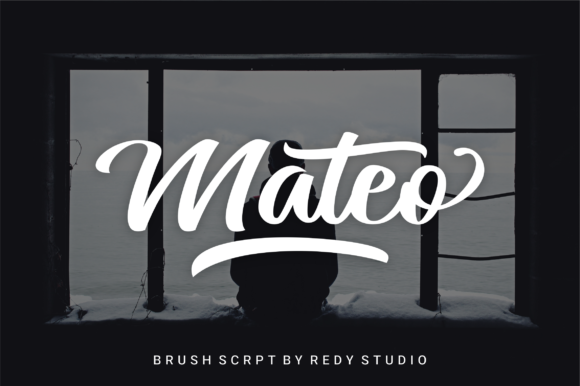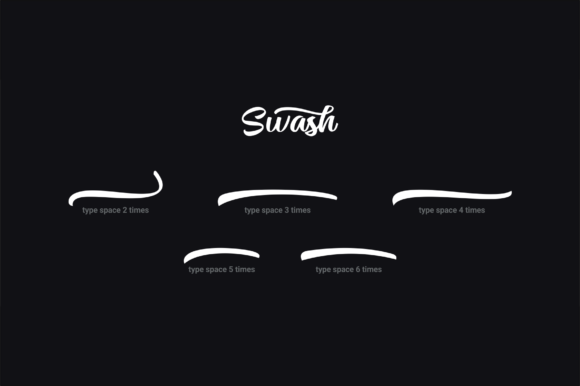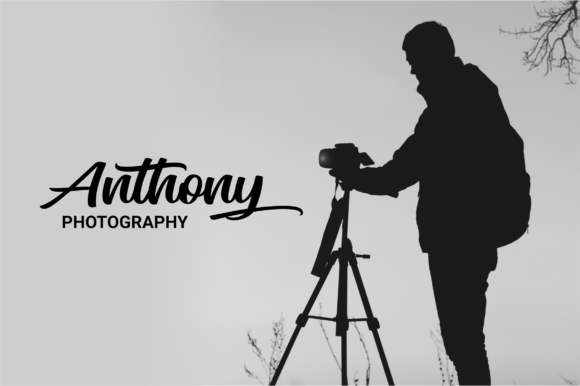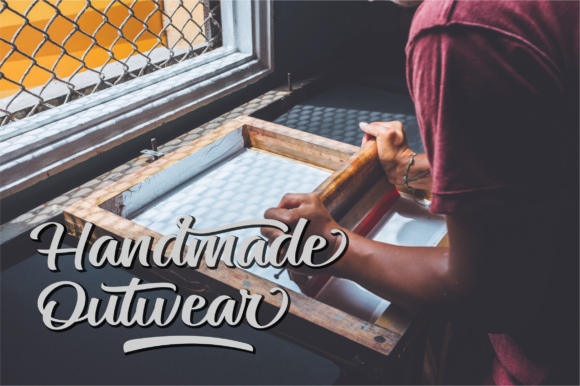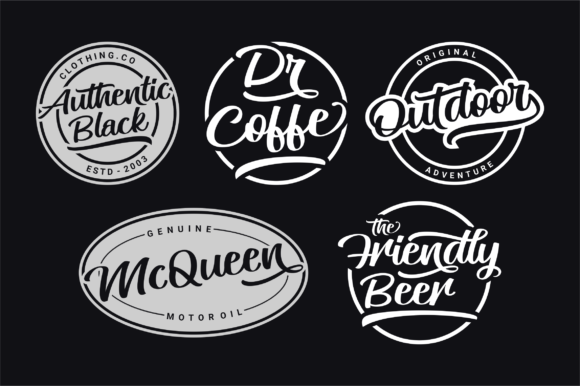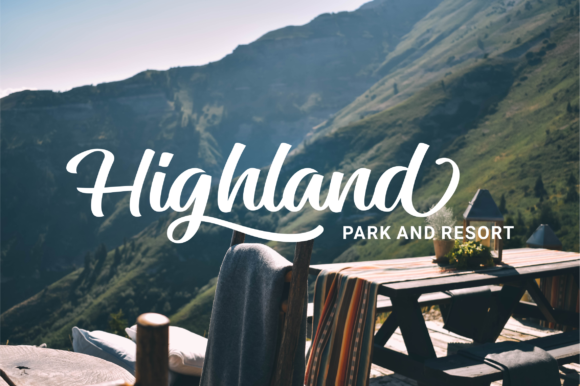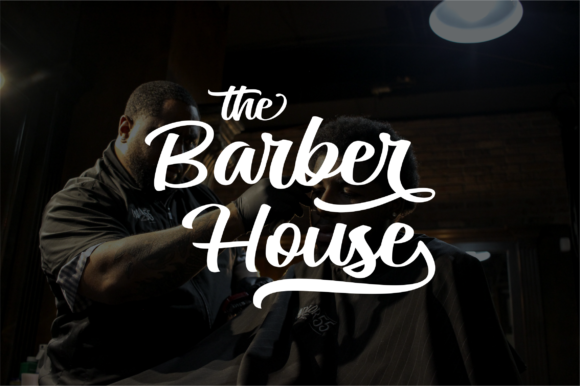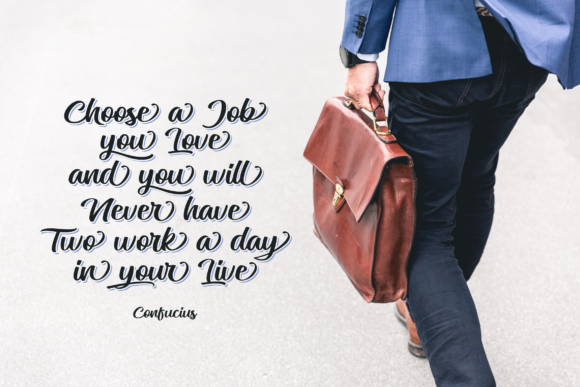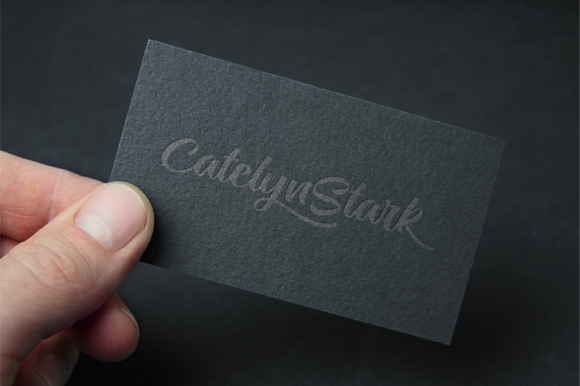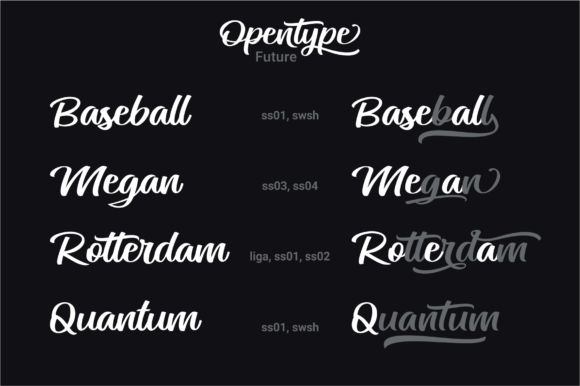
Mateo Script Font
About Mateo Script Font
The Mateo is a soft and clean brush script with a bold style. It’s perfect to use for logos, letterheads, posters, apparel designs, labels and much more!